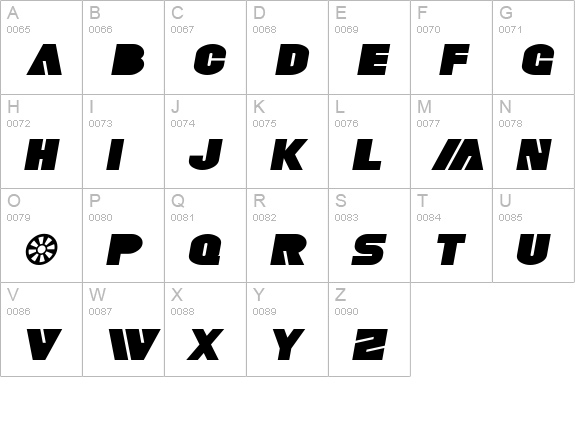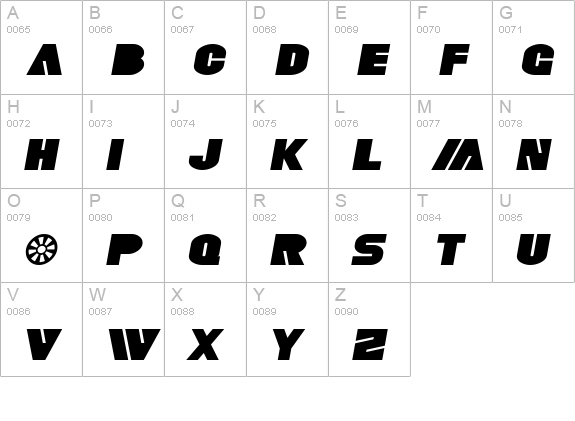
SF Fortune Wheel Extended Italic Font Details
SF Fortune Wheel Extended Italic is a distinctive, extended-width, italic variant in the SF typeface family \xE2\x80\x94 well suited to design and typography projects.
SF Fortune Wheel Extended Italic is a stunning font that exudes a sense of elegance and sophistication. With its sleek and elongated letterforms, this font effortlessly captivates the eye and adds a touch of modernity to any design project. The extended italic style of SF Fortune Wheel creates a truly unique aesthetic that stands out from the crowd. Its bold, yet graceful strokes give each letter a sense of movement and dynamism, making it perfect for headlines, logos, and other attention-grabbing designs. What sets SF Fortune Wheel Extended Italic apart is not only its exceptional design but also its accessibility. It is freely available to download at FontsMarket.com, allowing designers, creatives, and enthusiasts alike to easily incorporate this font into their projects without any restrictions. Whether you're working on a branding project, a magazine layout, or a website design, SF Fortune Wheel Extended Italic will undoubtedly elevate your work to new heights. Its versatility is boundless – from contemporary and edgy designs to classic and timeless layouts, this font effortlessly adapts to any style or concept. With SF Fortune Wheel Extended Italic, you have the power to create captivating visuals that leave a lasting impression. Its smooth and flowing appearance adds a touch of sophistication to any design, making it the perfect choice for those seeking to make a statement. Embrace the free-spirited nature of SF Fortune Wheel Extended Italic and let your creativity soar. Download this font today at FontsMarket.com and unlock a world of possibilities for your next design endeavor.